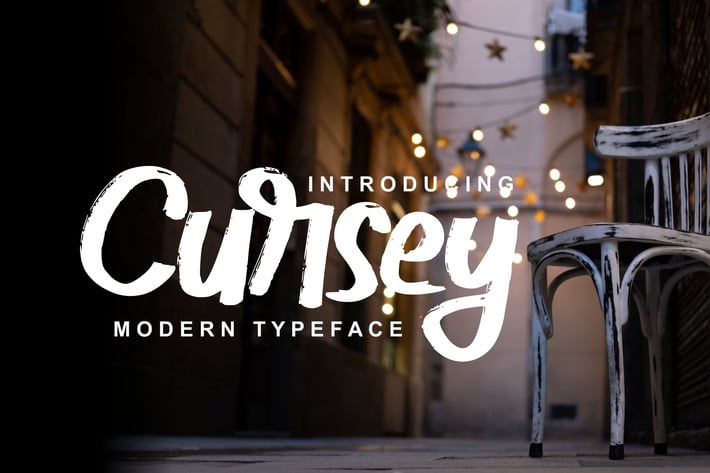
Cursey | Modern Typeface Font
Cursey | Modern Typeface Font with a calligraphy style, So beautiful on invitation like greeting cards, branding materials, business cards, quotes, posters, and more!